Valentine’s Day is a vibe, not just a day. Whether you're making a card for your partner, social media posts for your brand, or stickers to sell, your font choice matters. A horror font wouldn’t say I love you, right?
Fonts add feeling. They say what words can't. A sweet script can melt hearts; a bubble font can make Be Mine feel like a hug. To improve your Valentine’s Day designs, start with typography. This article is your guide to cute fonts for posters, quotes, and stickers that people will love.
You don’t need to be a pro designer to create magic. Just pick the right font, add a nice color palette, and you've got Valentine's Day perfection.
Let's get into fonts with swirls and hearts!
Top 20 Cute Valentine’s Day Fonts
Let’s get to the fun part—the actual fonts! Below is a curated list of 20 super cute Valentine’s Day fonts that are perfect for posters, quotes, stickers, and more. Whether you're going for romantic, playful, or quirky, you’ll find something that fits your design style.
1. Love Ya Like A Sister
This fun, quirky handwritten font is as playful as its name. With an informal, child-like aesthetic, it's perfect for casual Valentine’s Day cards or funny stickers. The letters look like they were written with a thick marker, giving off nostalgic notebook doodle vibes. It’s easy to read and pairs well with cleaner fonts if you want to balance out the energy.
2. Sweetie Pie
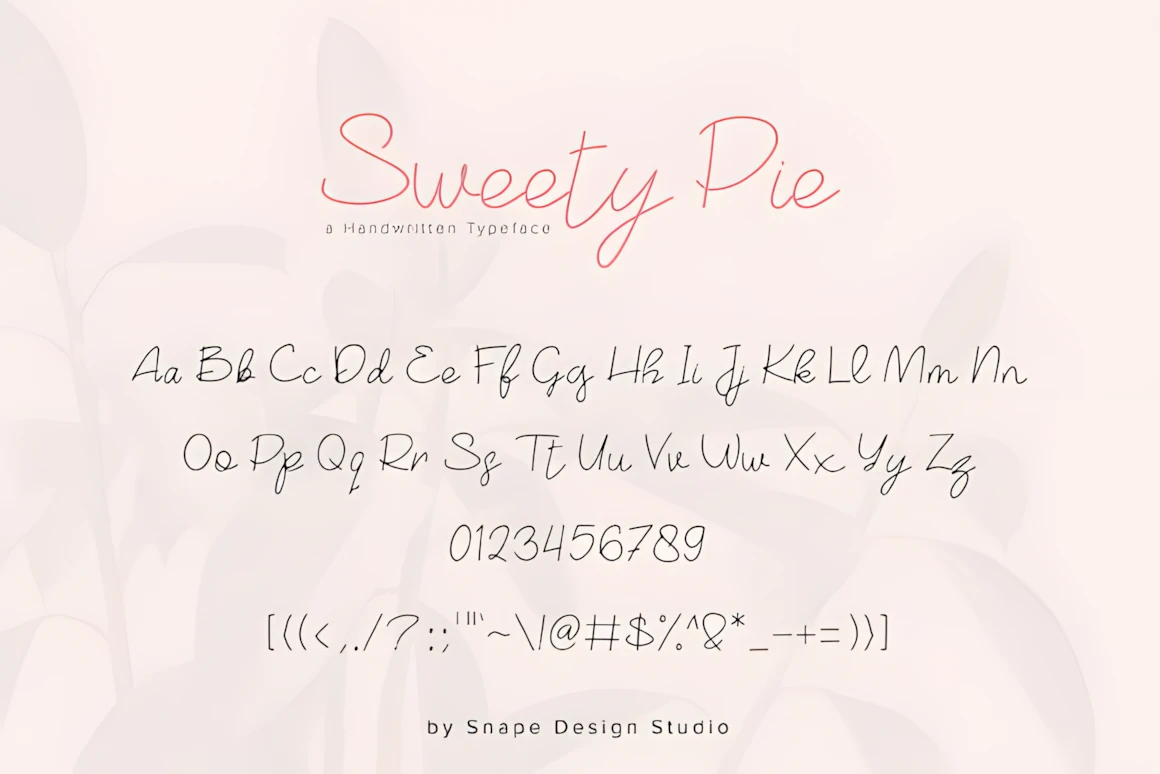
If fonts could blush, this one would. Sweetie Pie is a soft, script-style font that feels romantic without being too formal. The flowing lines and delicate curves make it ideal for expressing love in a soft, feminine way.
3. Amatic SC
A tall, skinny, all-caps font that feels hand-drawn and casual. It’s a minimalist choice but still very expressive. Great for headers and short phrases, especially when you want to keep things simple yet cute.
4. Pacifico
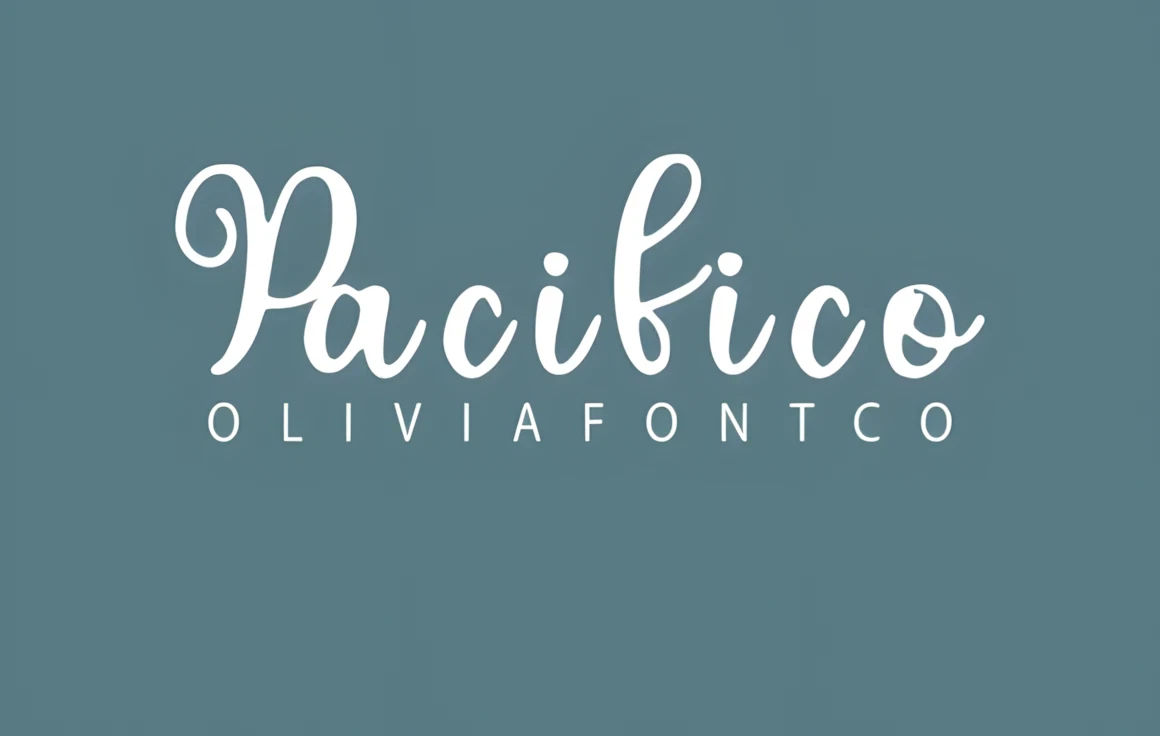
This bold script font screams beachy romance, like love letters written during summer vacation. It has smooth, flowing letterforms and is excellent for bold quotes or standout sticker designs.
5. Playlist Script
Brush-style hand lettering meets trendy flair. Playlist Script is messy in the best way—perfect for those raw, authentic Valentine’s Day messages. The strokes mimic real brush pen writing, adding a personal touch.
6. Heartland
Now here’s a font that literally wears its heart on its sleeve. Heartland has playful letterforms with tiny heart accents integrated into the design. It's a Valentine’s Day classic for a reason.
7. Lemon Tuesday
Romantic with a touch of boho, Lemon Tuesday is a beautiful cursive font that has just the right amount of whimsy. It's not too polished, which makes it feel genuine—like writing straight from the heart.
8. KG Love You Through It
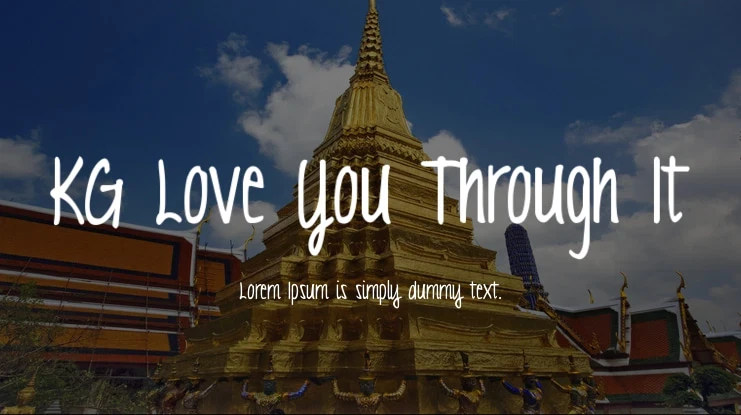
This font brings innocence and sincerity to your design. Its childlike, handwritten look makes it a go-to for classroom Valentine’s Day projects or simple printables with a heartfelt message.
9. Candy Inc.
Think bubble letters with a sugary twist. This font is rounded, bold, and looks like it was inspired by actual candy. It’s fun, chunky, and screams Valentine’s Day with a sweet tooth.
10. Dancing Script
Elegant but friendly, Dancing Script mimics a natural cursive handwriting flow. It’s modern and versatile, which means you can use it for both print and digital projects without worrying about readability.
11. Great Vibes
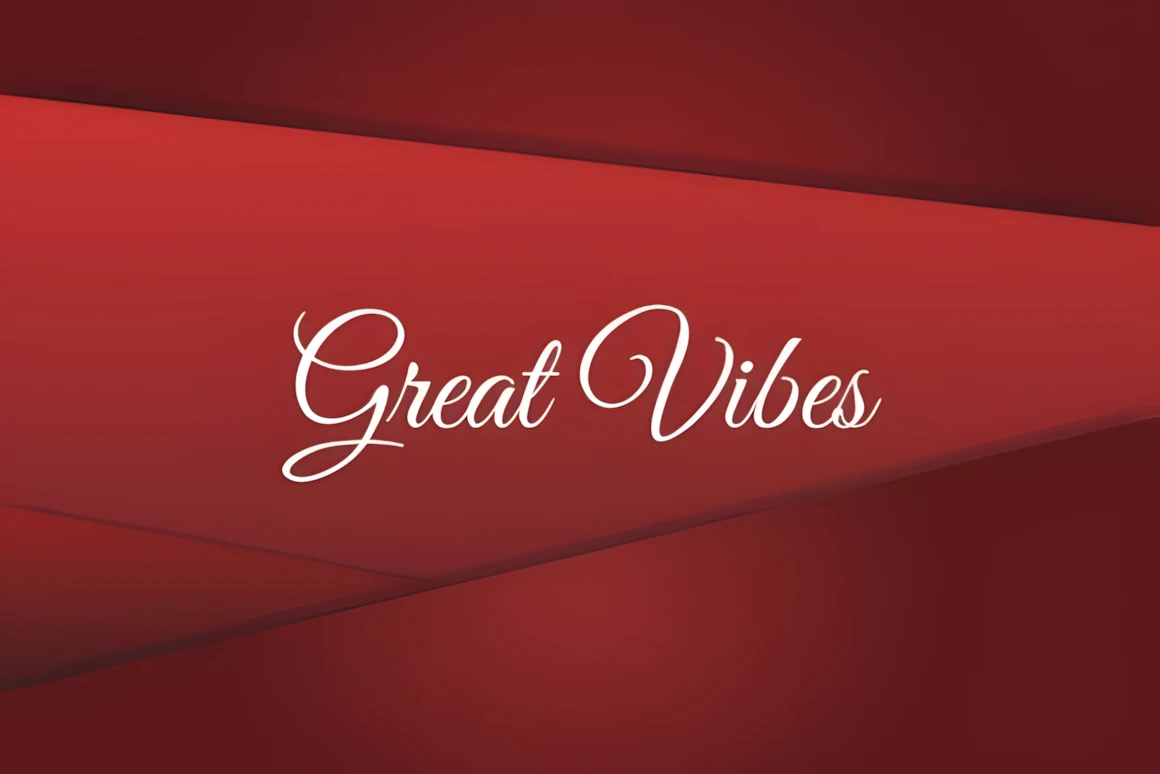
If you’re going for a more romantic, formal vibe, this is your font. Great Vibes has those beautiful flourishes and classic calligraphy curves that make any message look like it was penned with love.
12. I Love Glittermas Font
Talk about a font made for Valentine’s Day. I Love Glitter combines sweet swirls with built-in heart connectors. Yes, the letters are literally connected with hearts. It’s like cursive, but with sparkle.
13. Hello Honey
This font brings sass and class together. With bold strokes and a touch of attitude, Hello Honey is ideal for confident Valentine’s Day messages—especially on Instagram posts or bold stickers.
14. Janda Happy Day
Playful, bubbly, and almost cartoonish, this font is pure joy. Use it for light-hearted Valentine’s Day content that leans into the fun side of love.